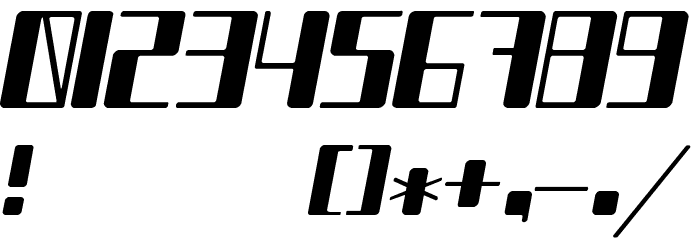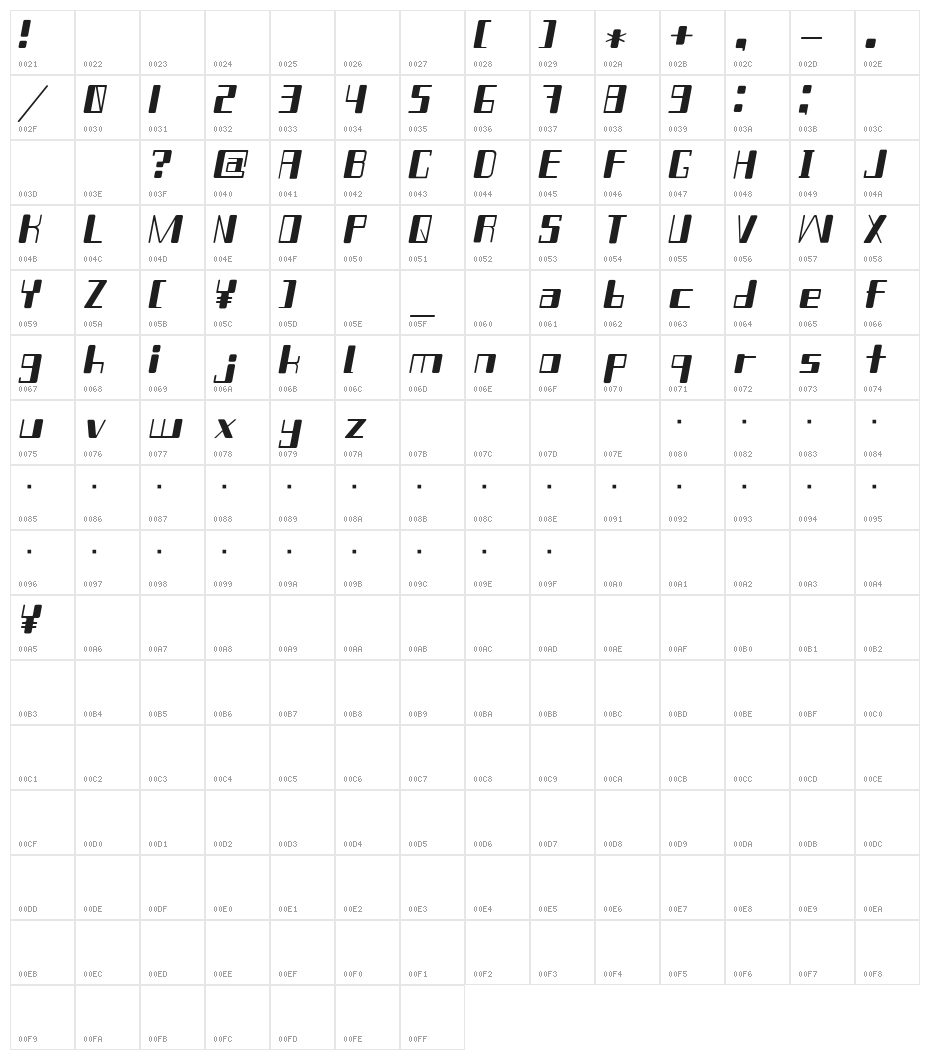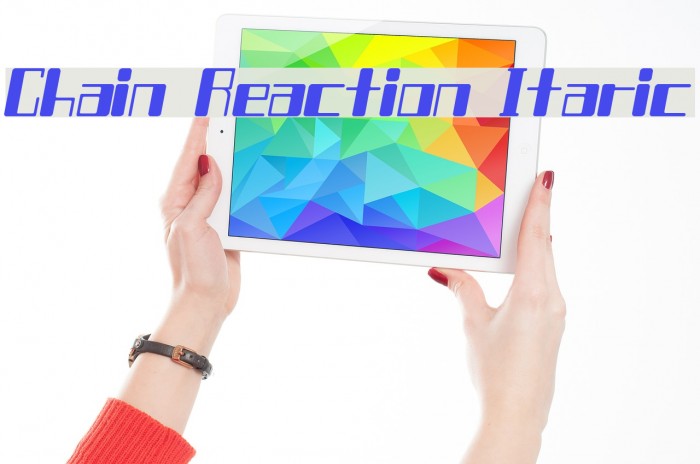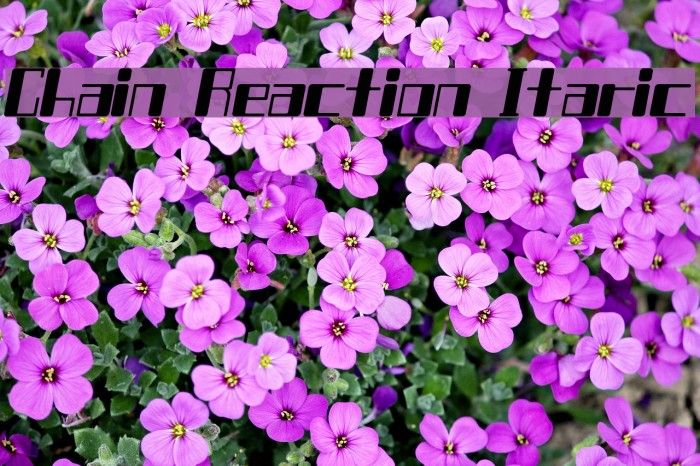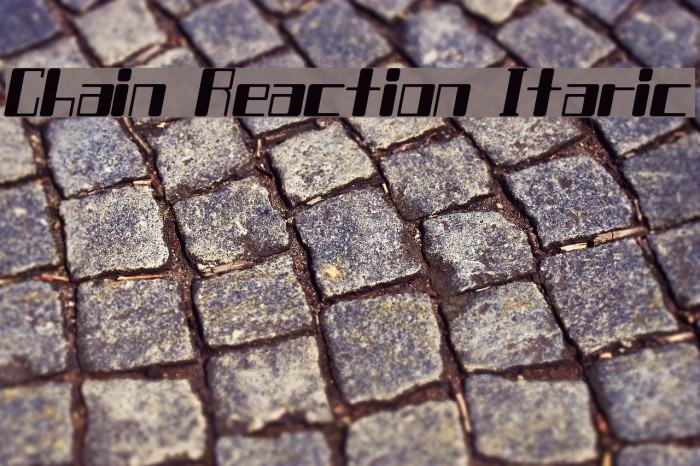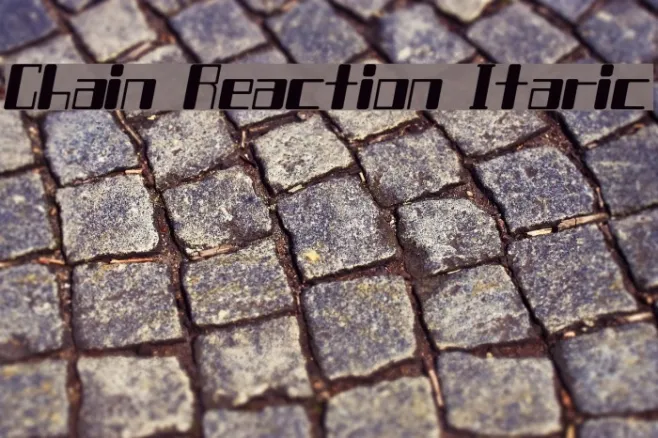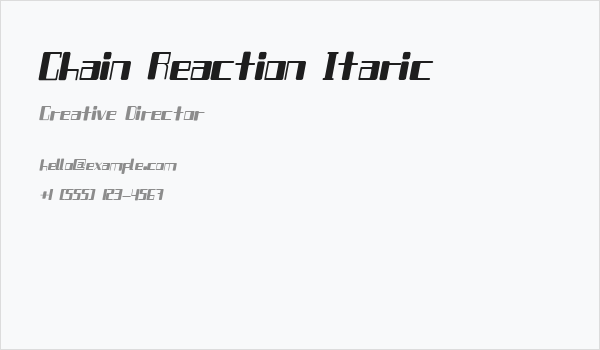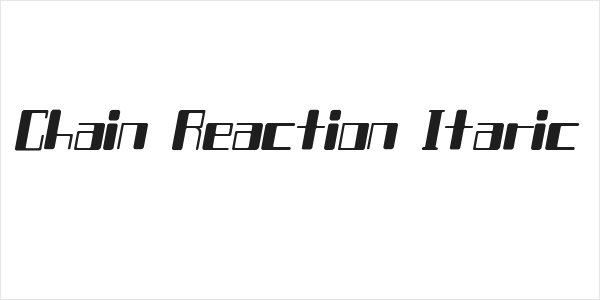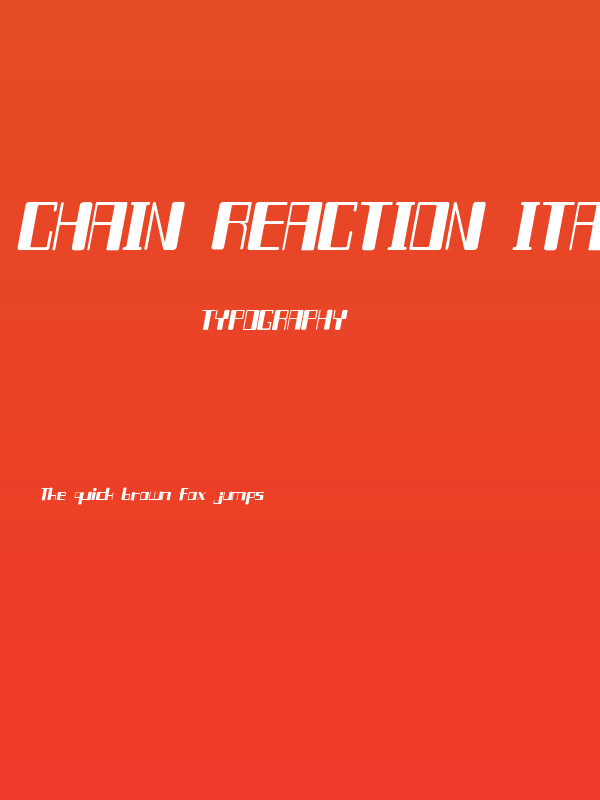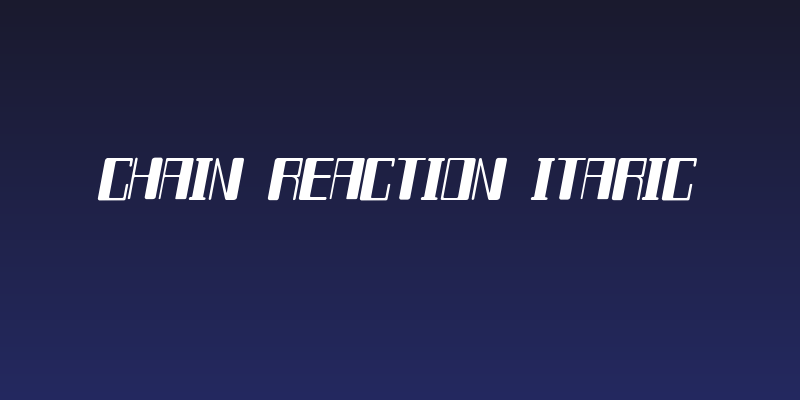
Chain Reaction Itaric Font
Chain Reaction Itaric Description
This font features a dynamic and futuristic design, characterized by its italicized, angular letterforms. The uppercase letters are bold and slightly condensed, giving a sense of speed and motion. The lowercase letters maintain the same angular style, with a consistent slant that adds to the overall sleek appearance. The numerals are distinct and match the boldness of the alphabet, ensuring readability. Special characters are designed to complement the overall aesthetic, with sharp edges and a modern flair. The font's unique style makes it suitable for projects that require a contemporary and energetic look.
| Proposed Projects | Ideal for tech branding, sports team logos, video game titles, and sci-fi themed designs. |